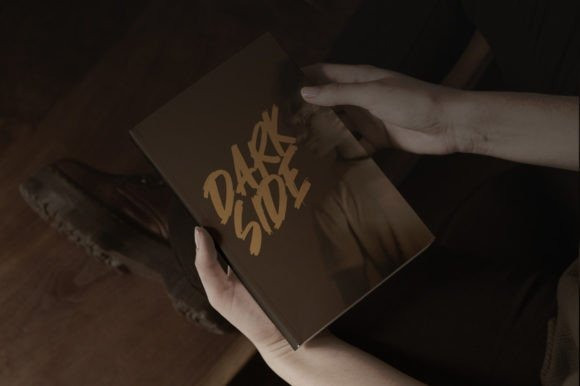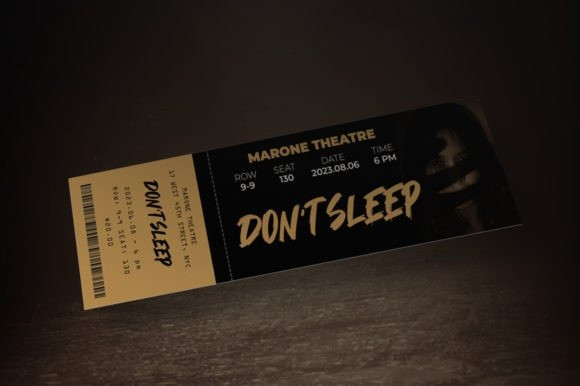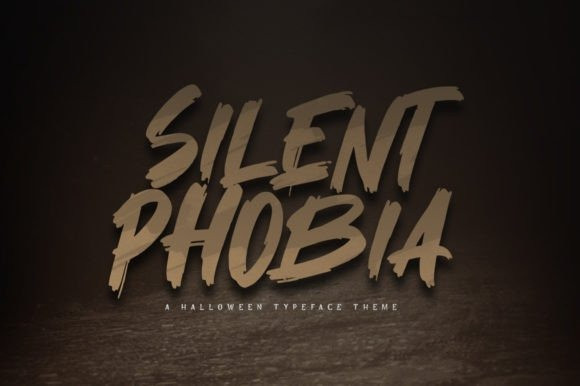
Silent Phobia Font
Silent Phobia Font is a unique and attractive handwritten brunch font. Oddly. This font is suitable for designs with horror and Halloween concepts. It can easily be matched to an incredibly large set of projects, so add it to your creative ideas and notice how it makes them stand out!